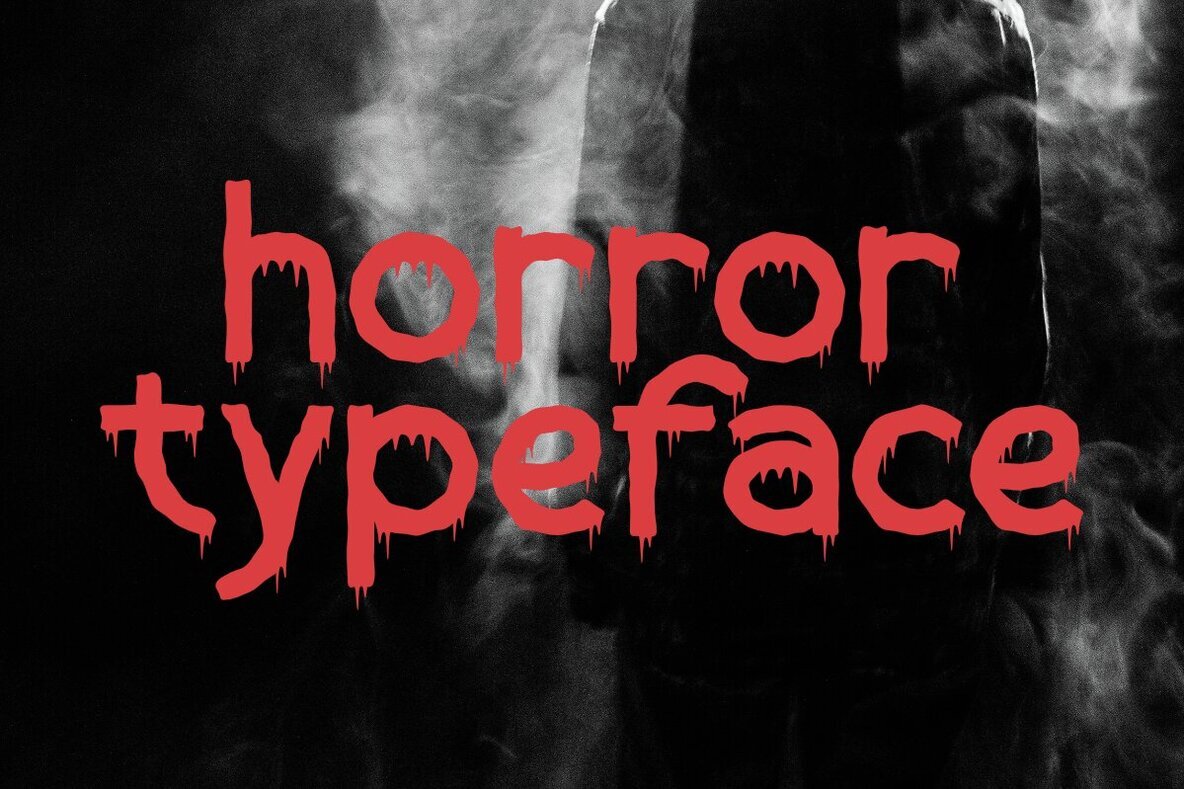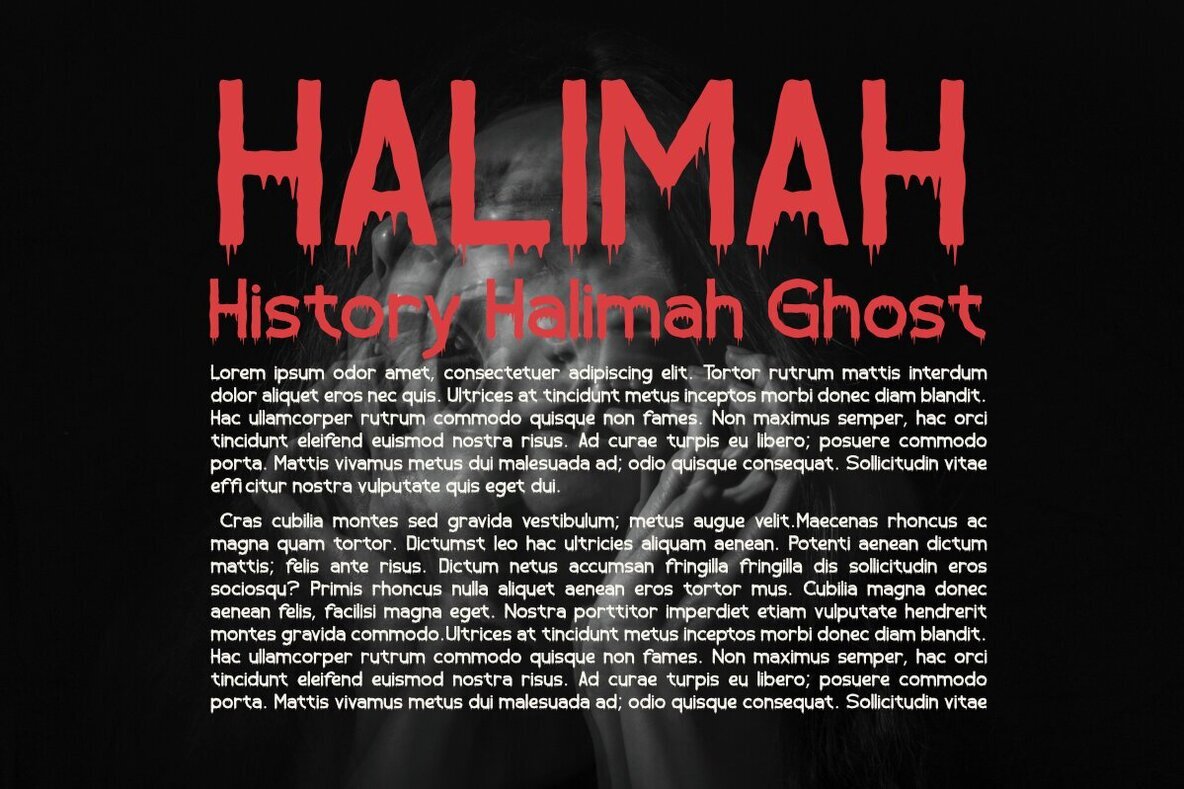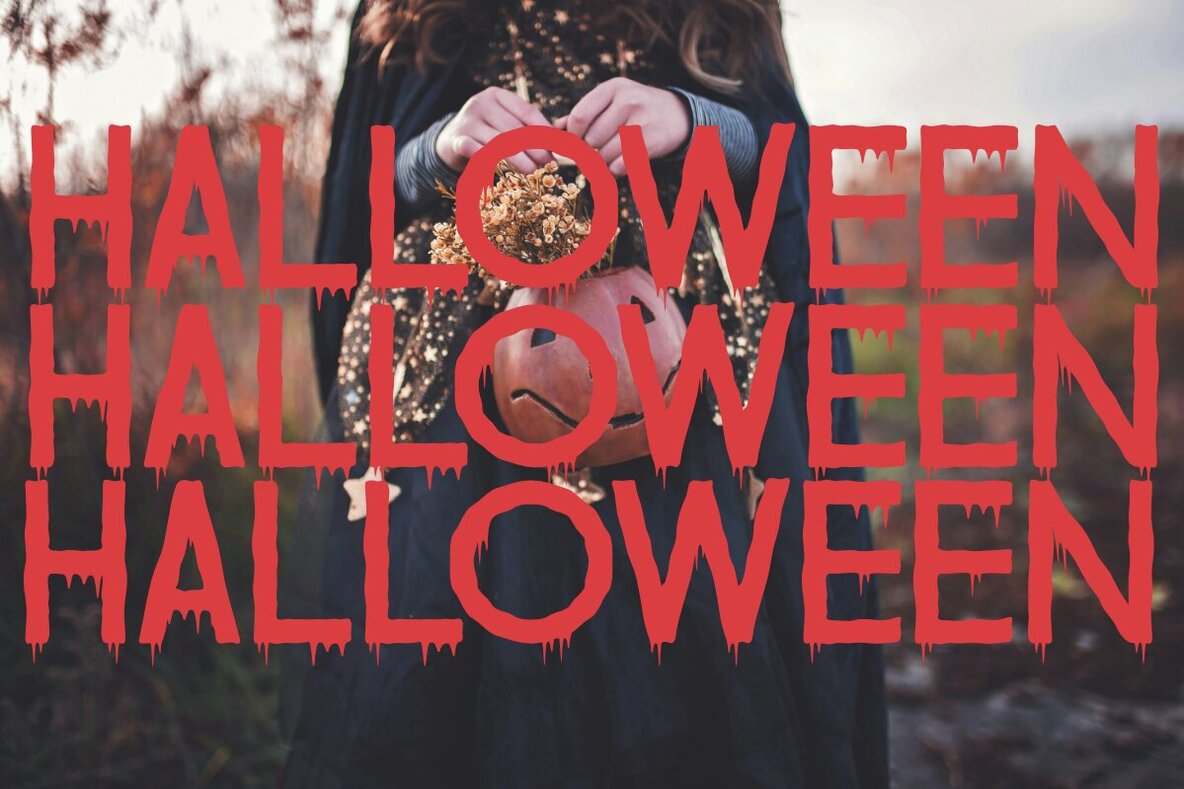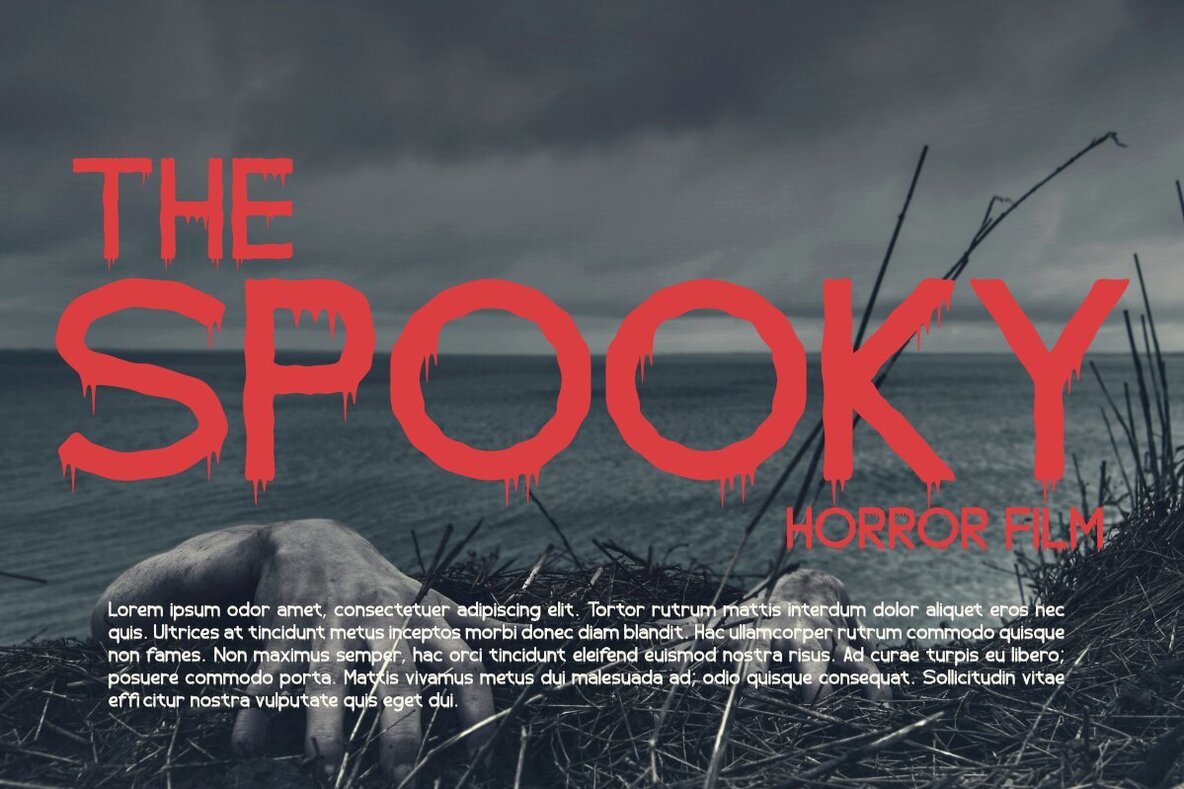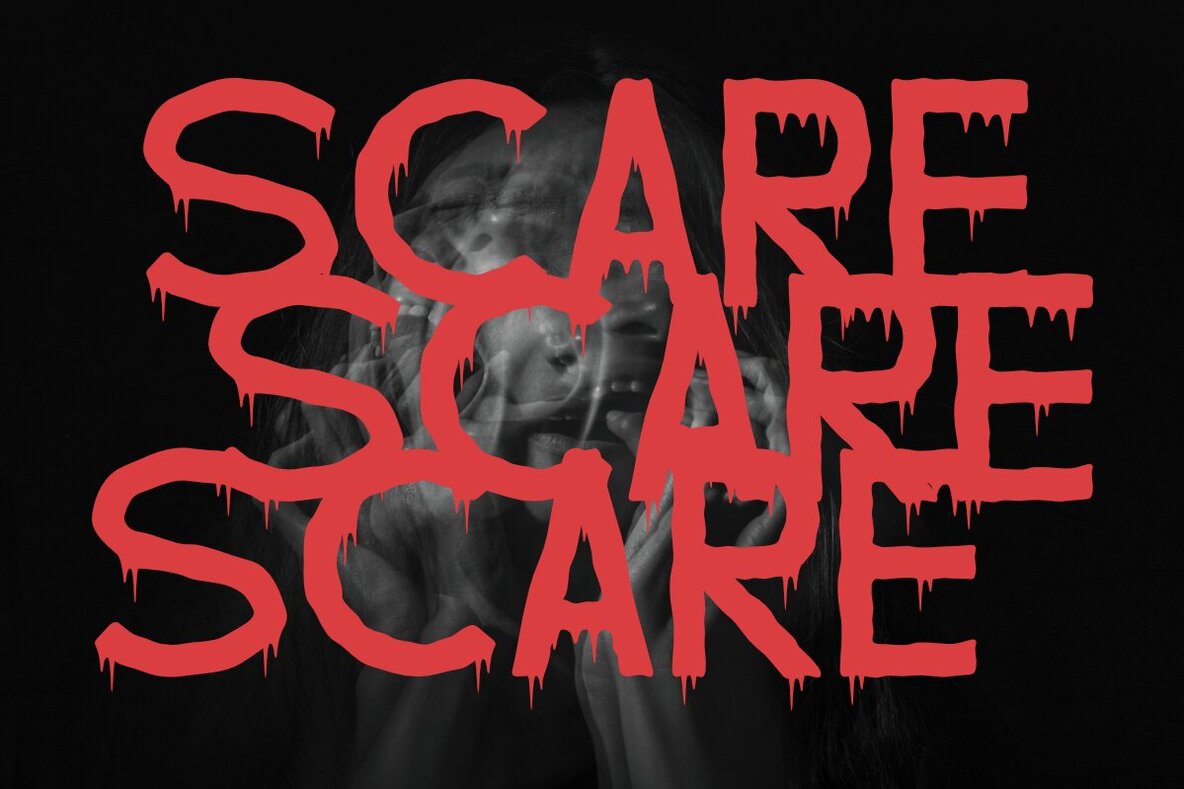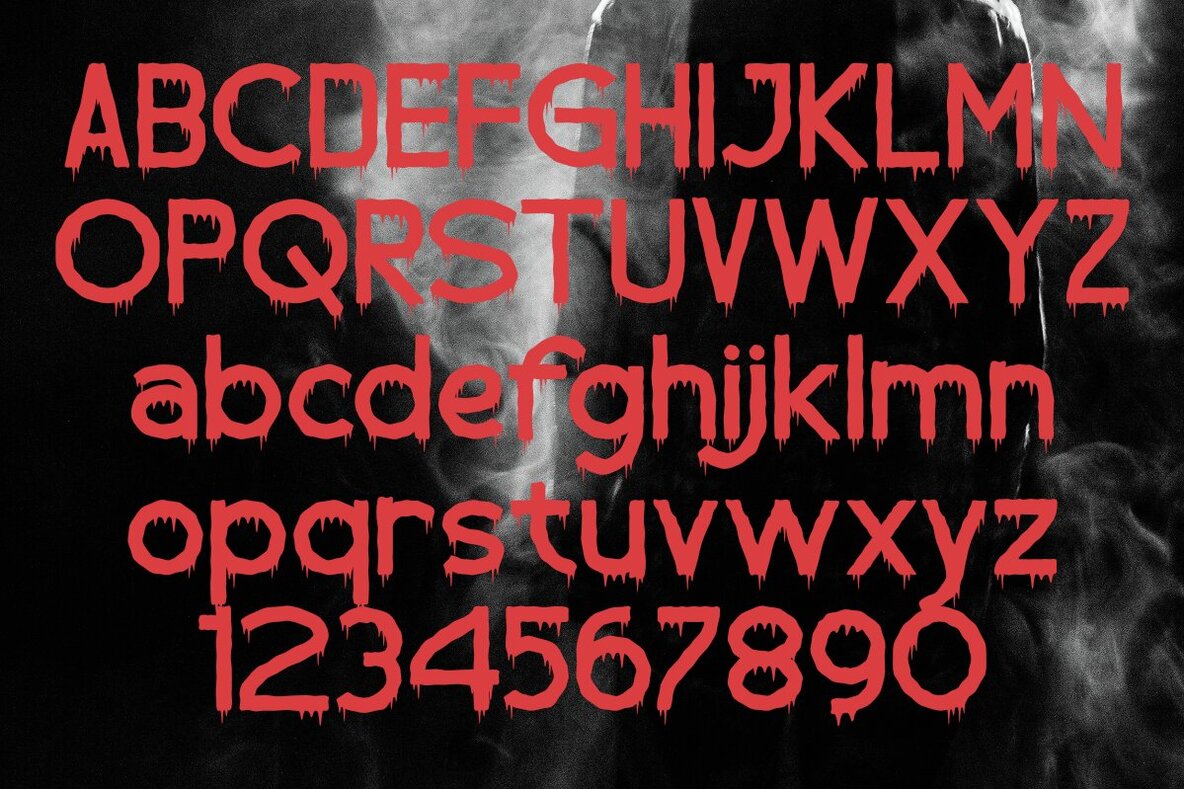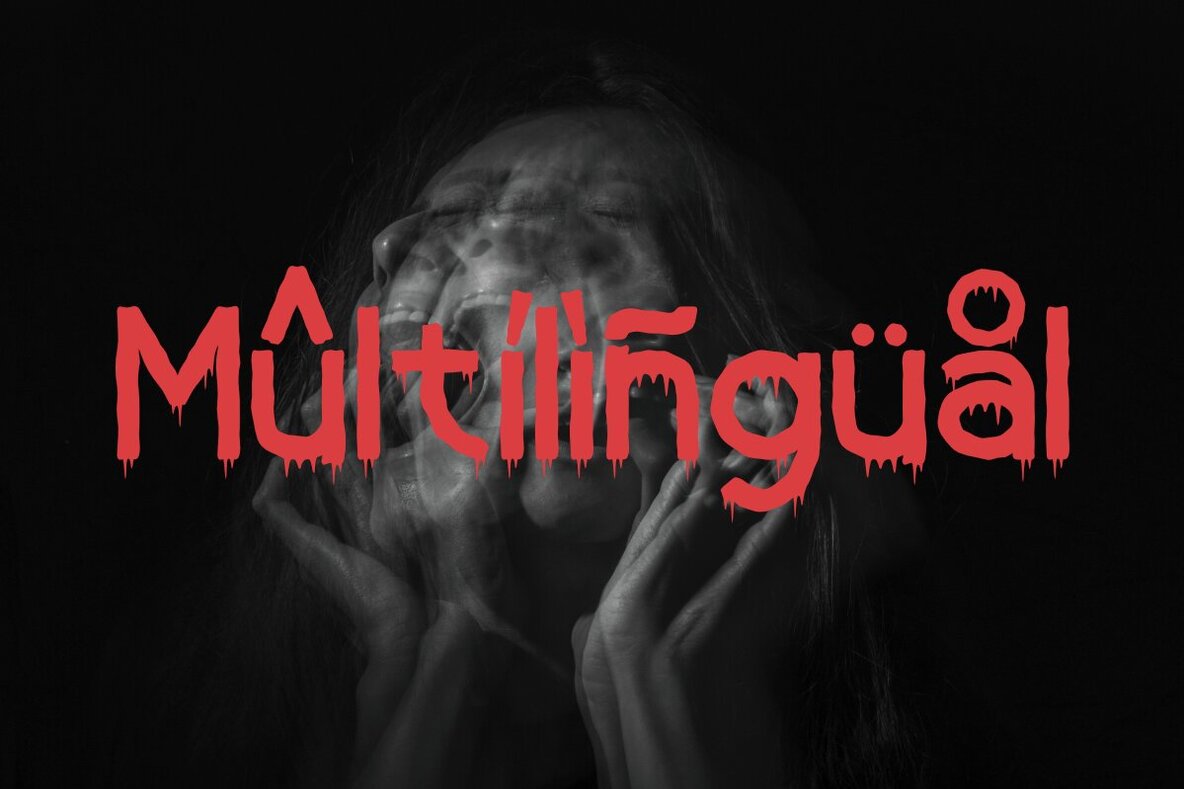
Halimah Ghost Font
Halimah Ghost is a display font brimming with horror and fiery energy, specifically designed for spooky themes, Halloween, or any eerie event. With sharp, jagged letterforms that appear ablaze, Halimah Ghost exudes a dark and ominous vibe. Each character comes alive with a burning effect, creating a frightening yet unique impression.
Perfect for Halloween event posters, horror movie titles, spooky book covers, and other fear-filled graphic designs. Halimah Ghost is here to evoke terror while delivering a dramatic and artistic touch. A fusion of terror and flames brought to life in unforgettable visuals.
Features:
• Lowercase and Uppercase
• Numerals & Punctuation
• Accented characters
• Multiple Languages Supported